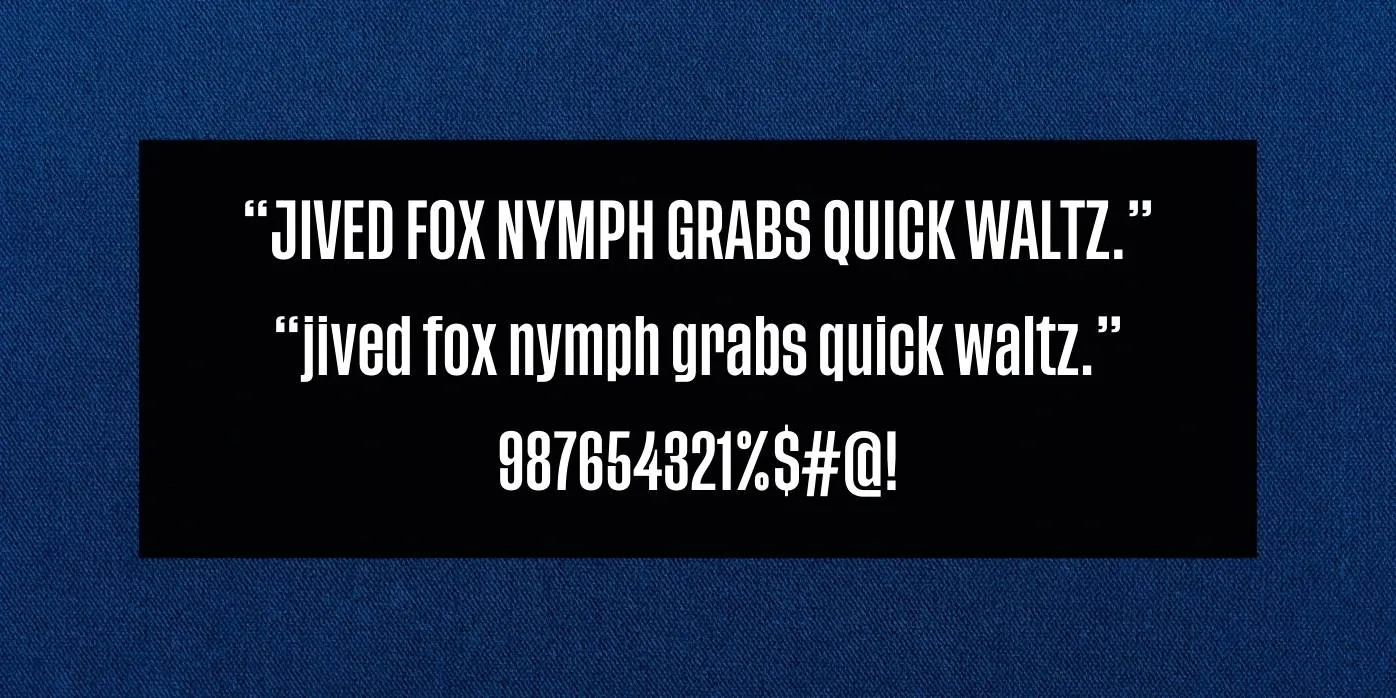
Tusker Grotesk Font
Tusker Grotesk Font is a sans-serif typeface that was designed by Hannes von Döhren of the HVD Fonts foundry in 2009. The design is based on two grotesques from the early 20th century: Fritz Heckert’s Schaftstiefel Grotesk (1917) and Rudolf Koch’s Kabel (1927). Hannes von Döhren is a German typeface designer who has been designing typefaces since 2002. The Font family includes 12 styles: 6 weights (Light, Regular, Medium, DemiBold, Bold, Black) with matching italics as well as 6 additional styles (Light Italic, Regular Italic, Medium Italic, DemiBold Italic, Black Italic).
The glyph has an extensive character set that supports over 200 languages. The Font family is well suited for editorial and web design, as well as branding and advertising. If you want to compare this typeface style with varsity font then it would be the best combination for you.